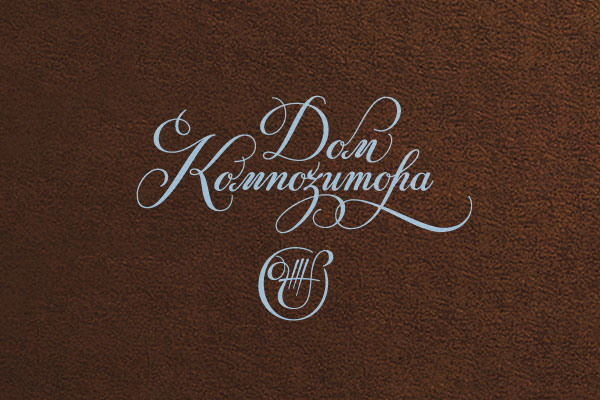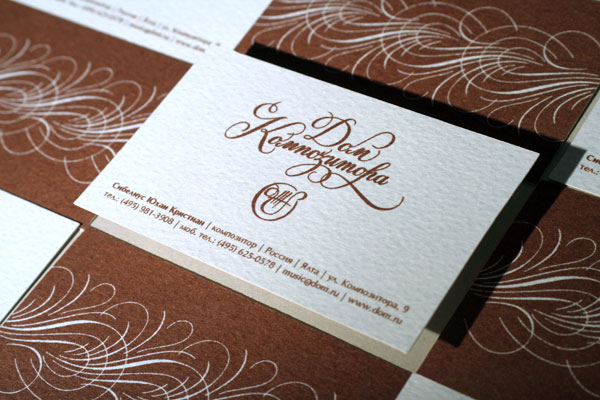
Composer’s house
Logo for the elite house in Yalta. The English spencerian calligraphy refers to 19th century, an era of refined classicism, when the house of composer Alexander Spendiarov was built.